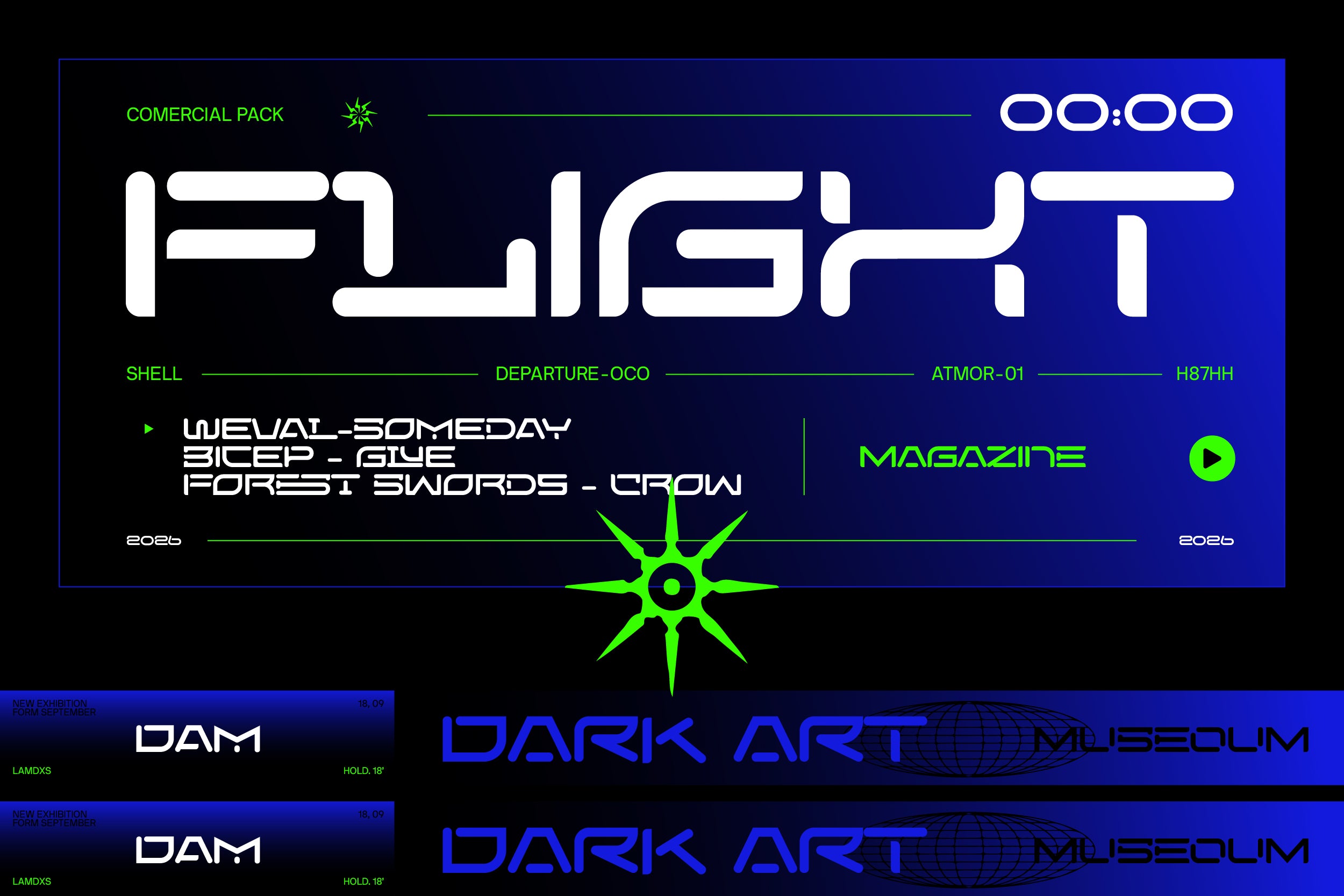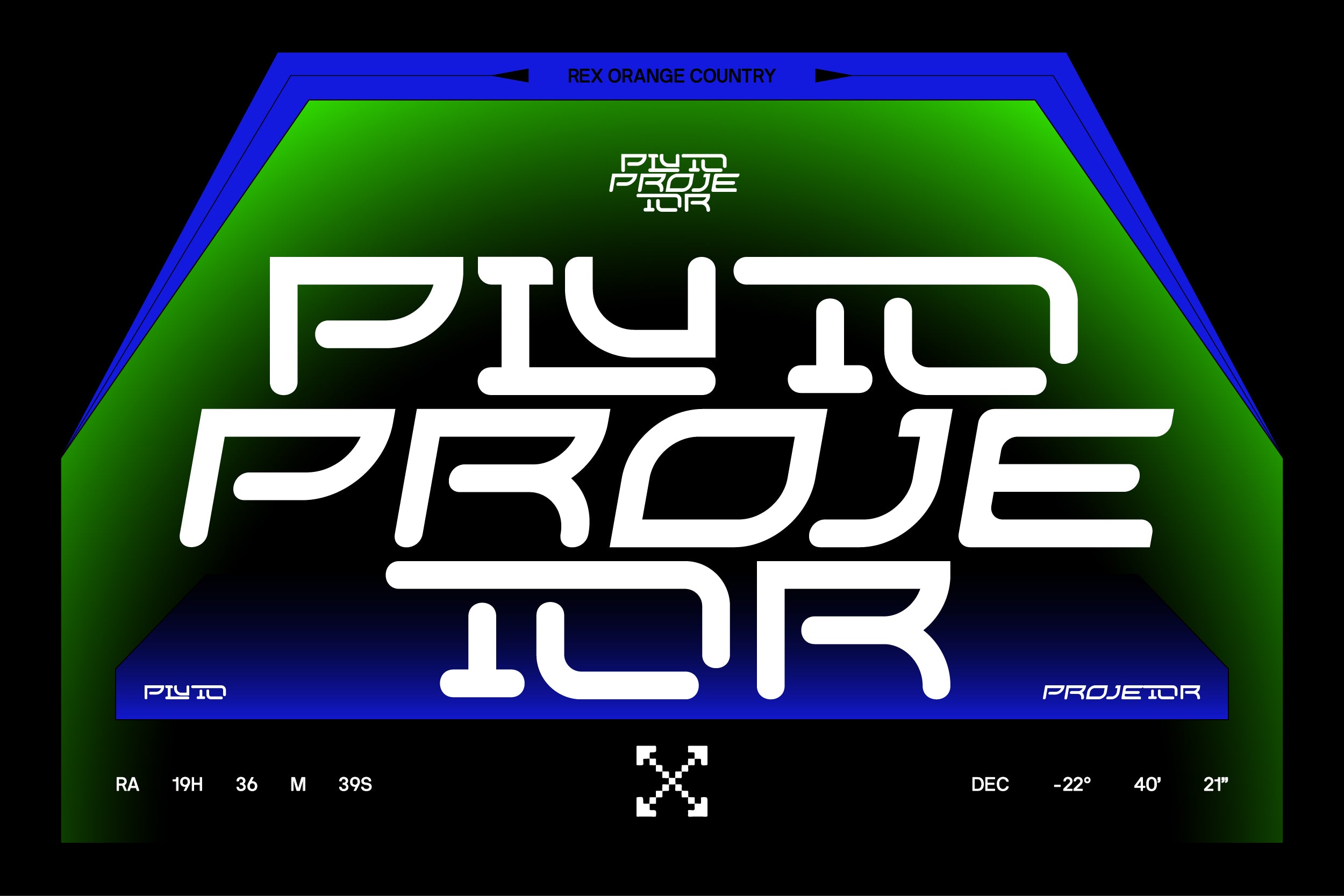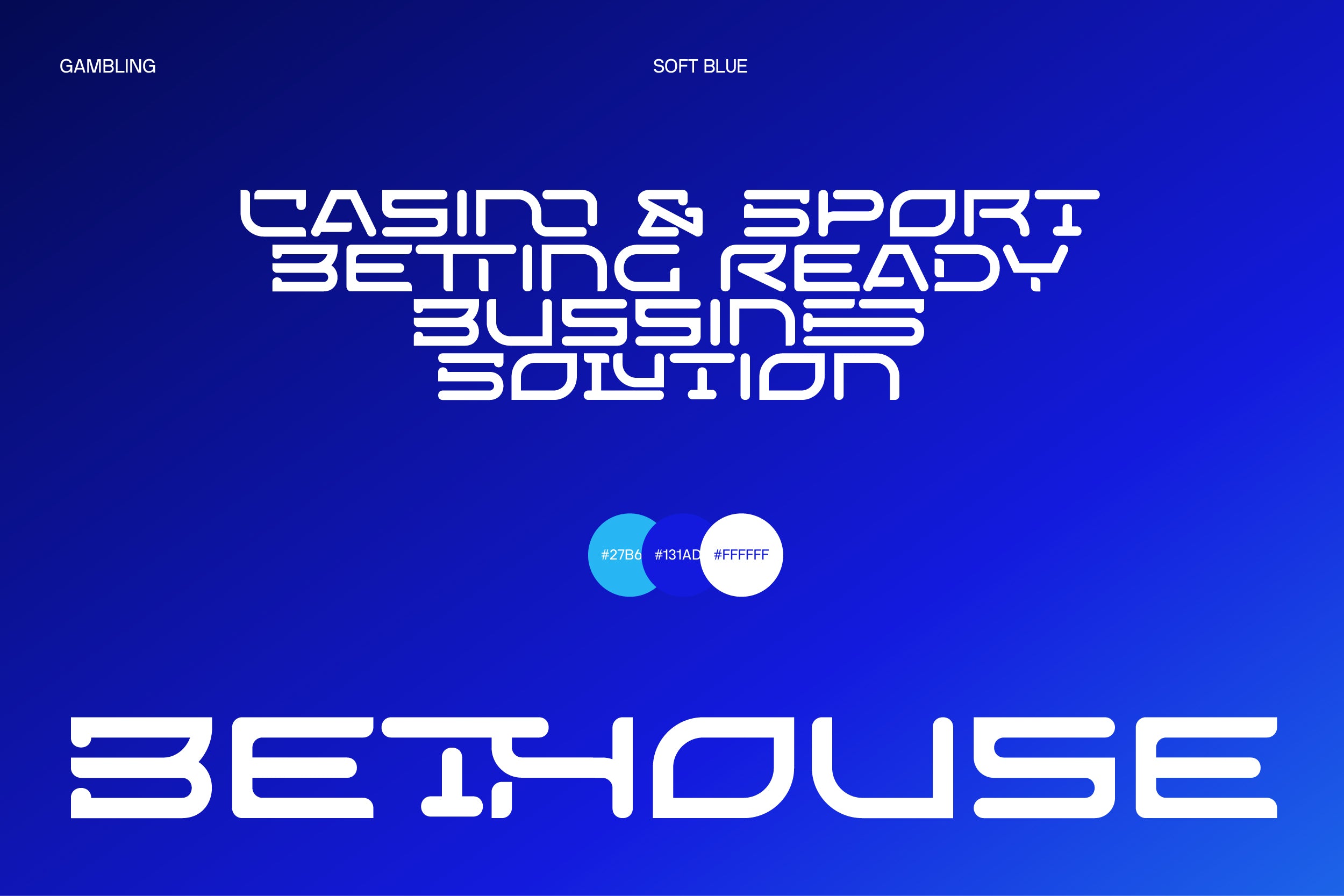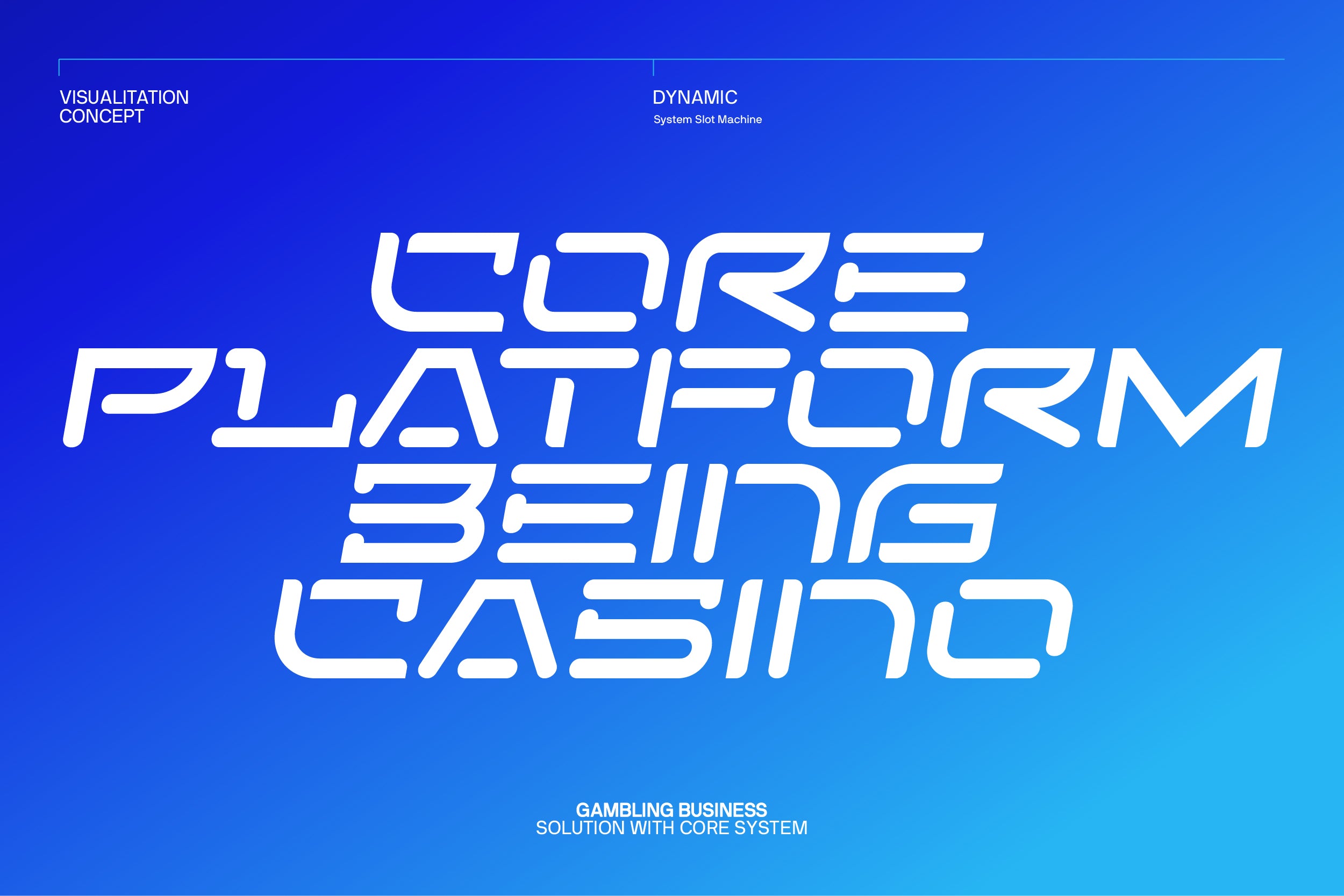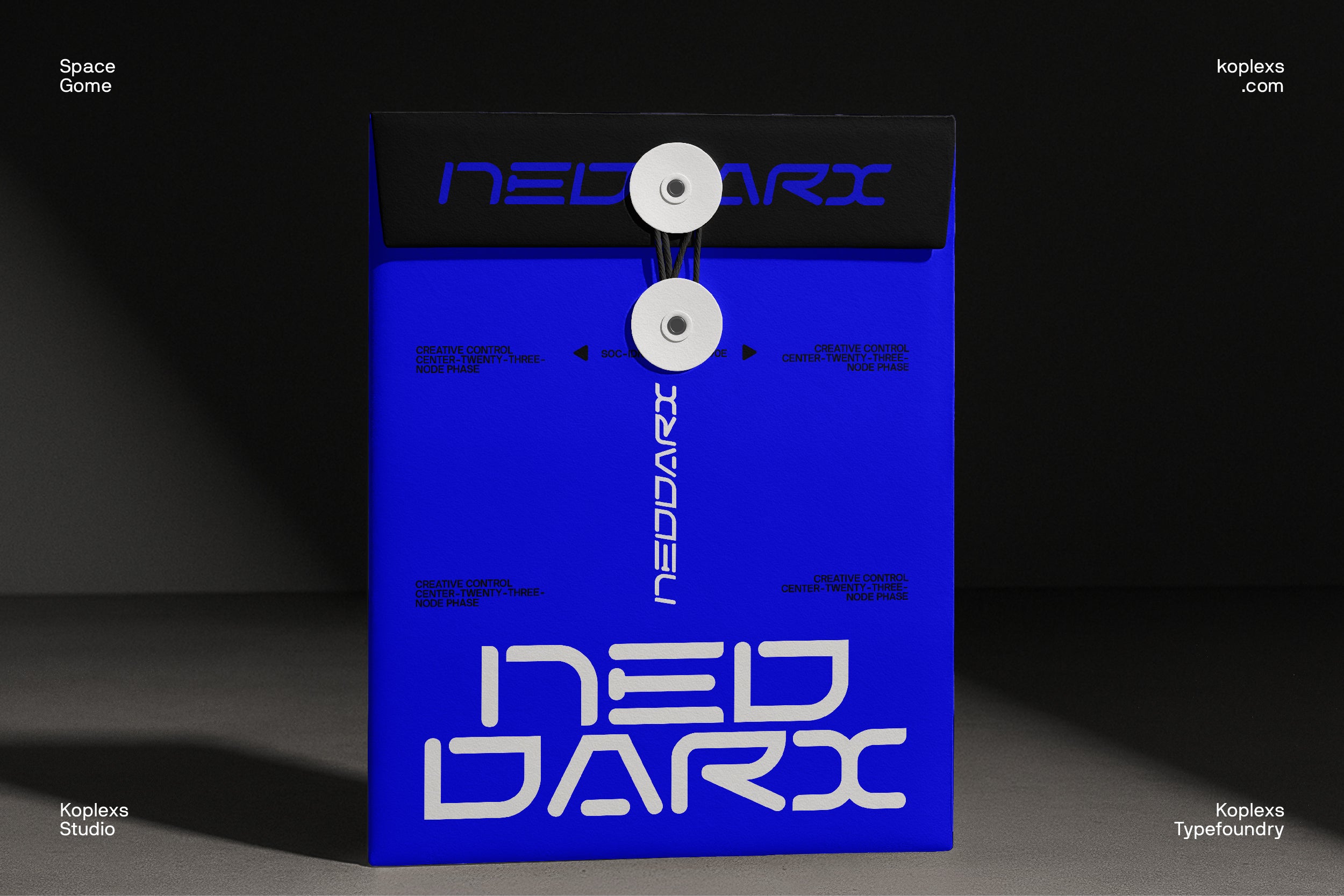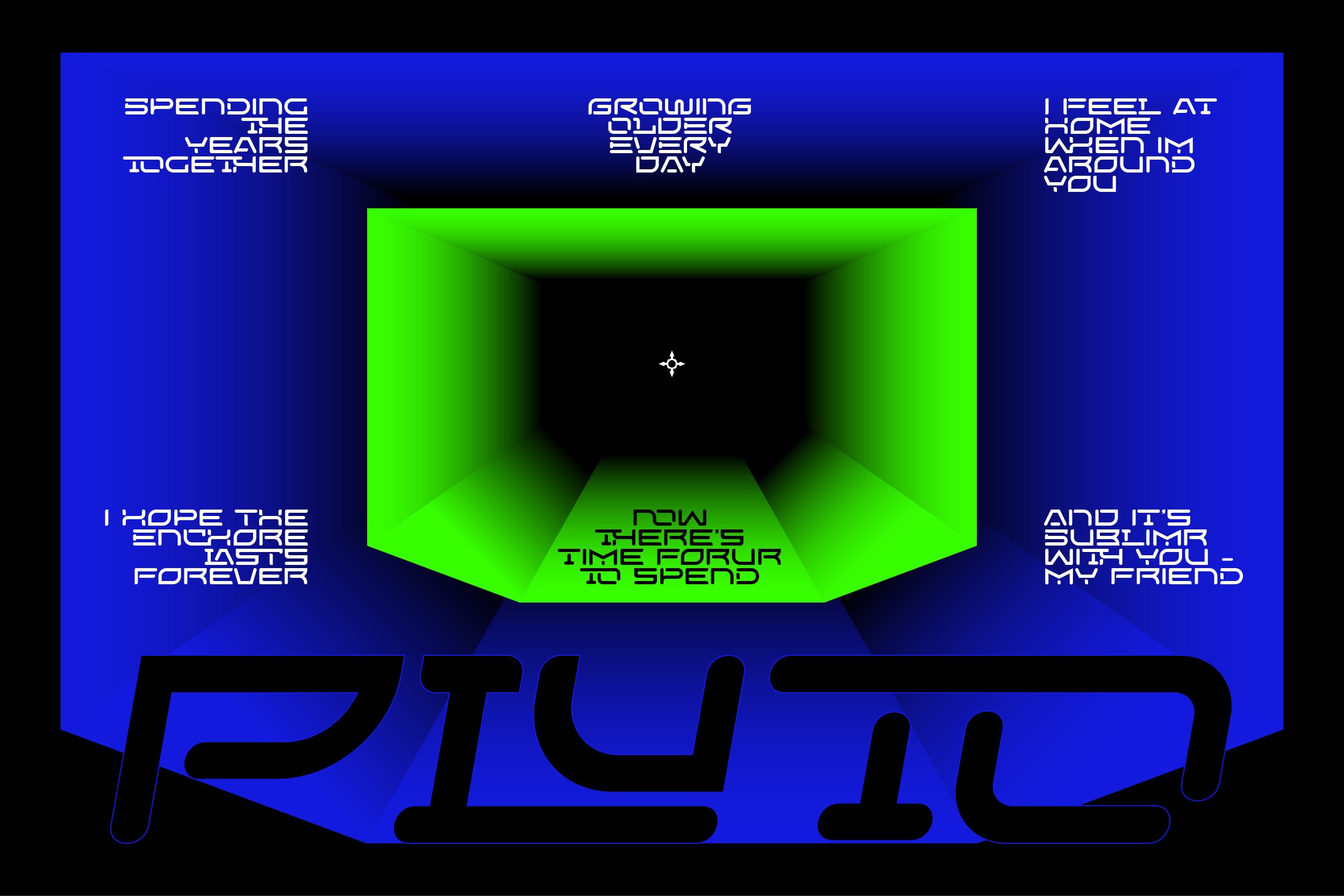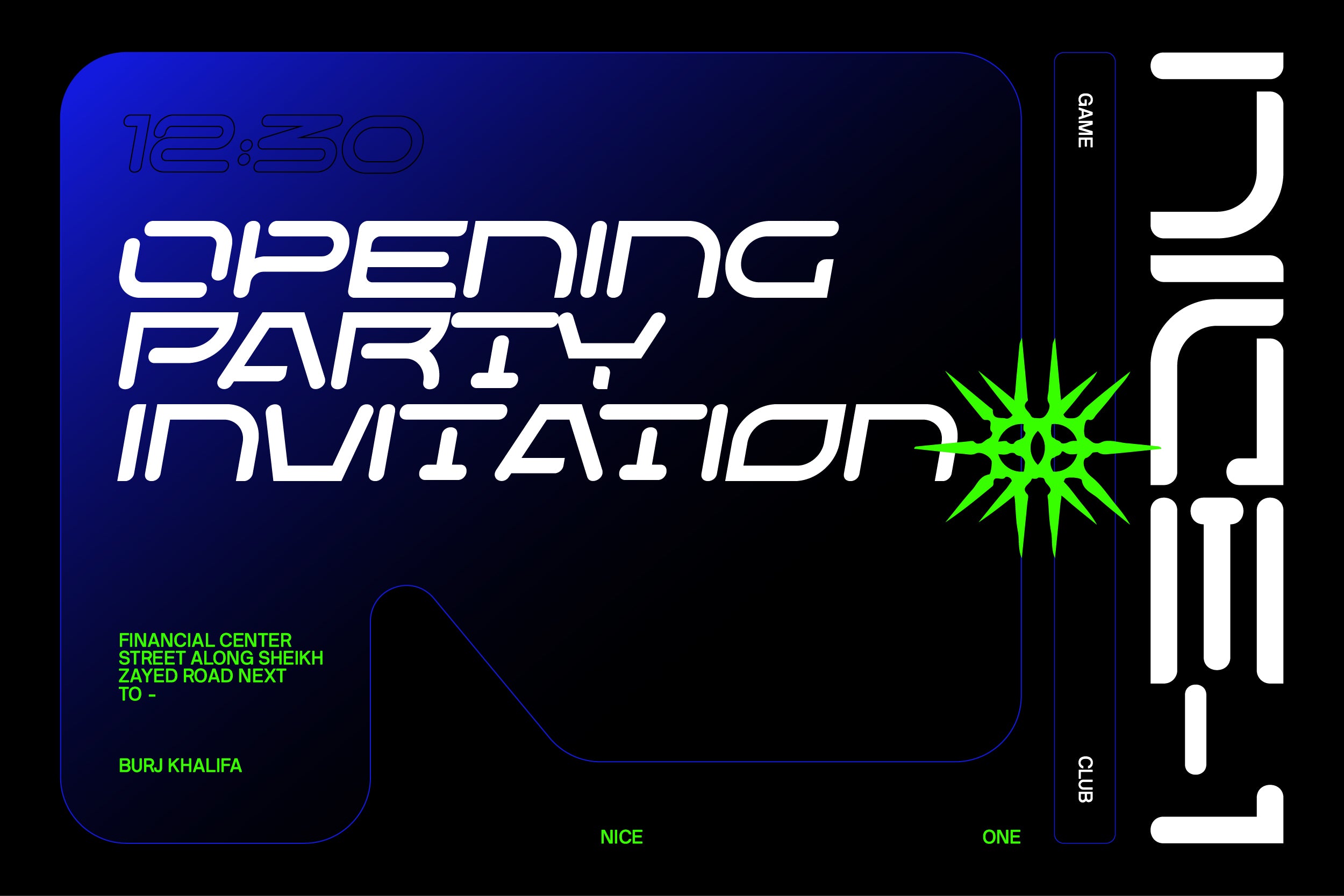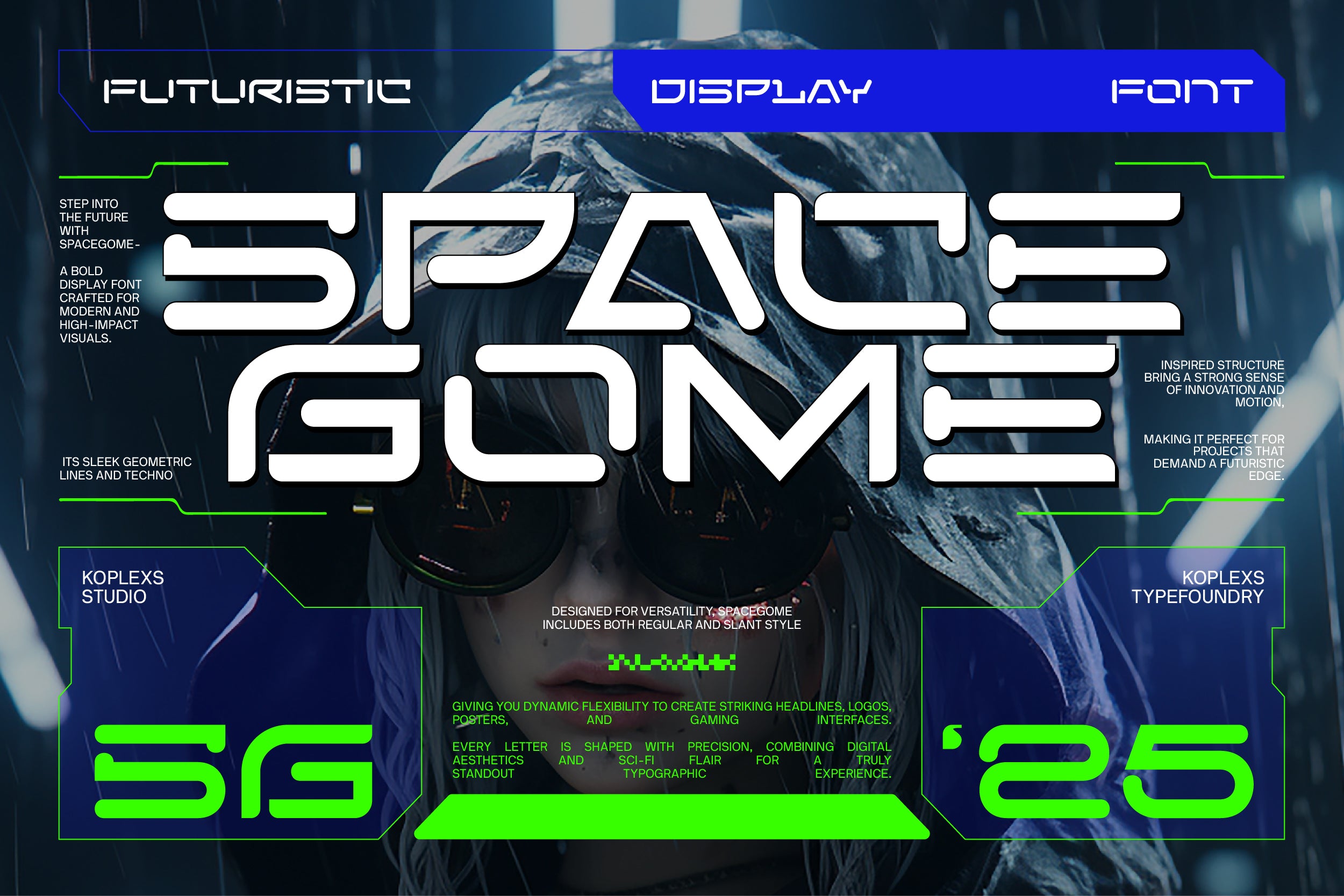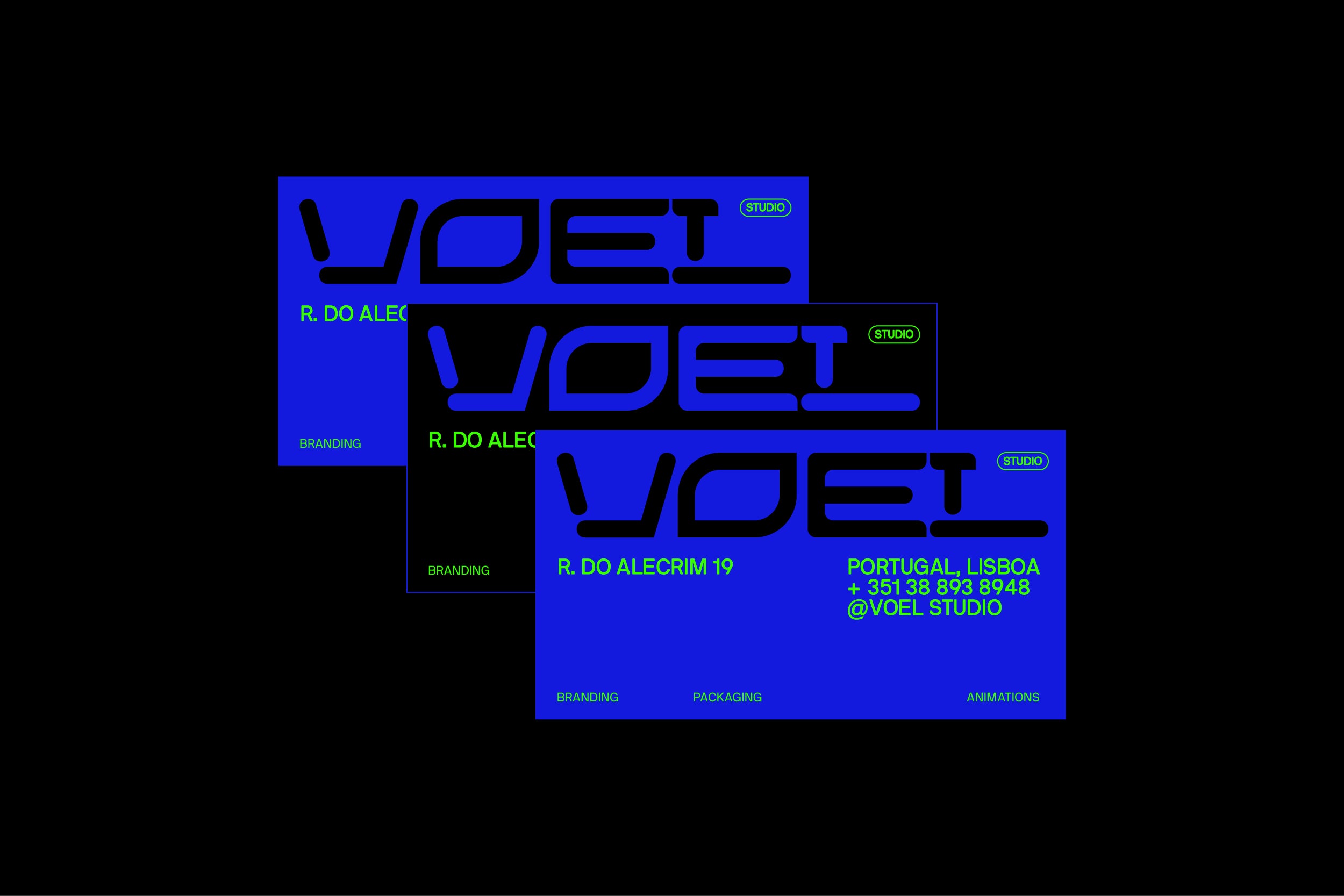
Space Gome Font
Space Gome Font is a futuristic tech-inspired typeface designed to bring a modern, high-tech look to your creative work. With Regular & Slant styles, plus stylish alternate characters and ligatures, it delivers clean, distinctive typography for professional and creative projects.
Ideal for sci-fi branding, game interfaces, technology logos, app designs, posters, headlines, product packaging, websites, and digital marketing. Elevate your next design with Space Gome Font and make every project stand out with futuristic style.
Space Gome Font is a futuristic, tech-inspired typeface available in Regular and Slant styles, featuring alternate characters and ligatures for distinctive typography. It is designed for professional and creative projects, offering a modern, high-tech aesthetic suitable for various applications.